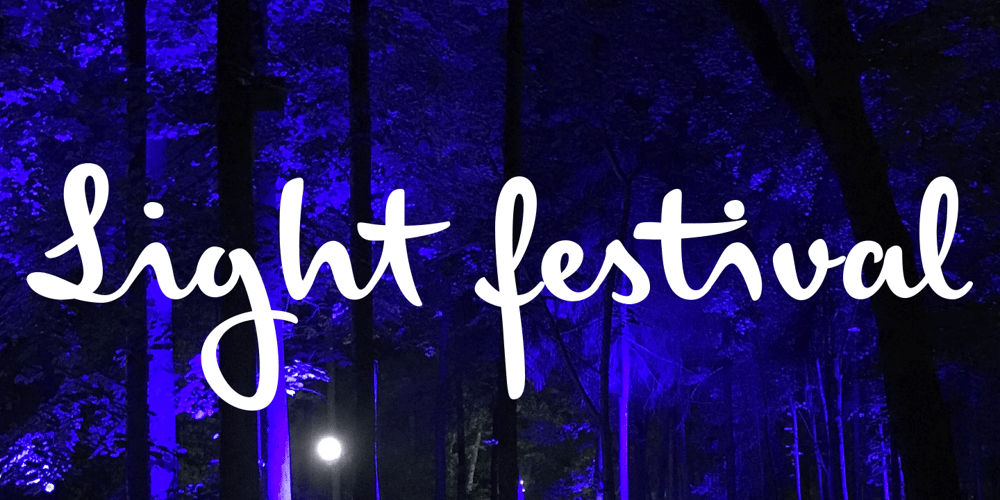
Josef K Paneuropean
Josef K Paneuropean font
Josef K Paneuropean Font Family was designed by published by Juliasys. Josef K Paneuropean contains 2 styles and family package options. With the Josef K *, Julia Sysmäläinen continues her artistic debate on Franz Kafka’s writing style. This time the designer of FF Mister K is not drawn to Kafka’s literary works created at night but to those the writer produced at daytime as a high-ranking, confident bureaucrat – Dr Franz Kafka. The typefaces Josef K “Paneuropean” and “Strong European” echoe Kafka’s prestigious status at the Workmen’s Accident Insurance Institute of the Austro-Hungarian Empire. Their ductus, originating from a broad-nibbed ink pen combines a clear, self-confident stroke with the calligraphic features so typical for Franz Kafka’s handwriting. While both typefaces are more straightforward and bolder than the wonderfully erratic fonts of the FF Mister K family Josef K Paneuropean is best characterized as a semibold handwriting textface. Josef K Strong European, Sysmäläinen’s latest “K”-accomplishment, provides an ideal complement to it as a distinctly bold display face – great for headlines, product names and branding. It combines perfectly not only with Josef K Paneuropean but also with all the FF Mister K textfaces. Both Josef K Paneuropean and Josef K Strong European have Western, Central European and Extended Cyrillic character sets. With more than 2500 glyphs they support over 100 languages. *Kafka’s persona Josef K is a leading bank officer – reminiscent of the author himself – in the novel The Trial.